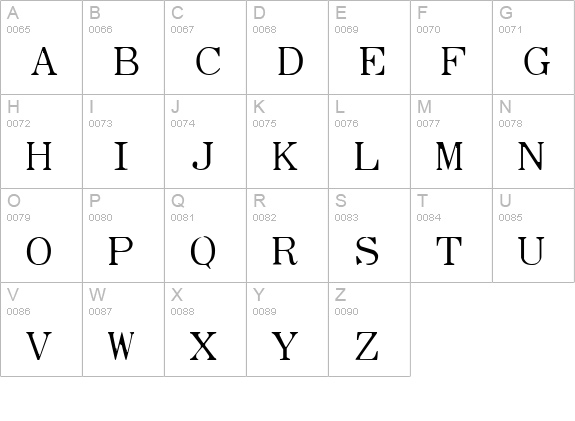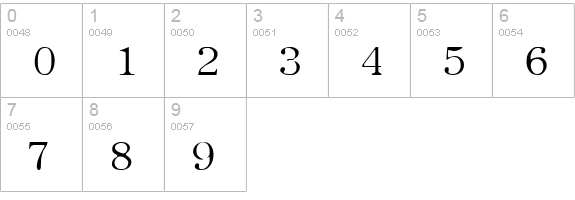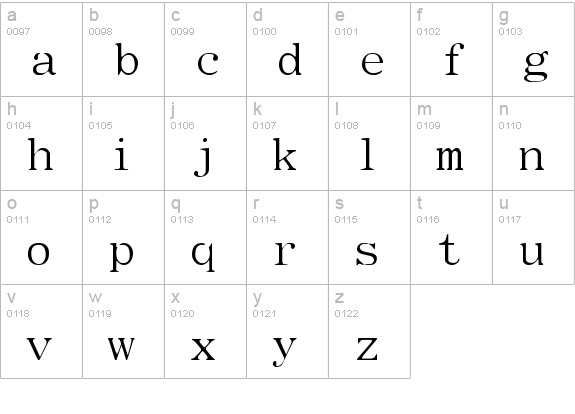
Type Wheel Font Details
Type Wheel is a stunning font that effortlessly combines elegance and modernity. Its sleek lines and balanced proportions make it the perfect choice for any design project that requires a touch of sophistication. This versatile typeface is suitable for both headings and body text, making it a valuable addition to any designer's toolkit. With its wide range of weights and styles, Type Wheel offers endless possibilities for creative expression. Whether you're designing a logo, branding materials, or a website, this font will elevate your work to new heights. Its clean and clear letterforms ensure legibility and readability in any context, ensuring that your message is conveyed effectively. One of the most appealing aspects of Type Wheel is that it is free to download at FontsMarket.com. This means that you can access this exceptional font without any cost, making it an invaluable resource for designers on a budget. The fact that it is freely available adds to its appeal and makes it even more accessible to a wide range of users. Type Wheel's distinct personality and timeless appeal make it suitable for a variety of design projects. Whether you're working on a modern and minimalist design or a vintage-inspired masterpiece, this font will effortlessly adapt to your vision. Its versatility and flexibility make it a firm favorite among designers looking to add a touch of class to their creations. In conclusion, Type Wheel is a free font that combines elegance, modernity, and versatility. Its effortlessly sleek lines and balanced proportions make it a perfect choice for any design project. With its wide range of weights and styles, it offers endless possibilities for creative expression. Available for free download at FontsMarket.com, this font is a valuable addition to any designer's toolkit.